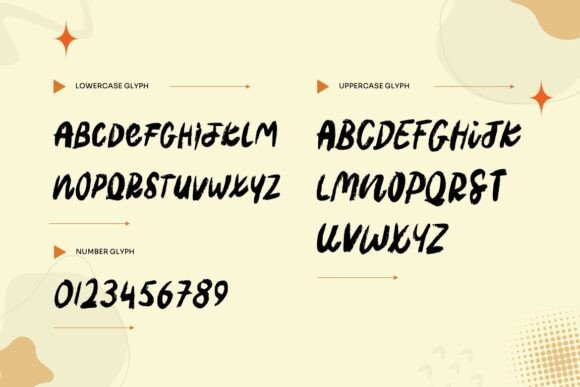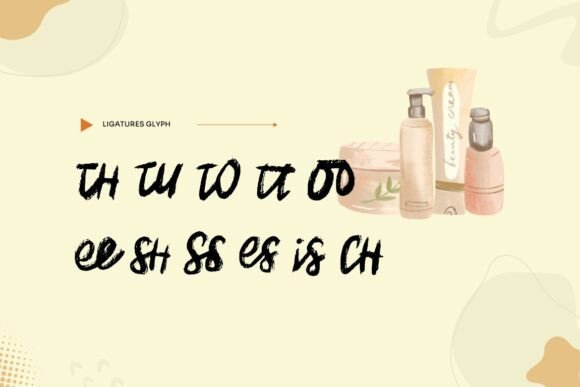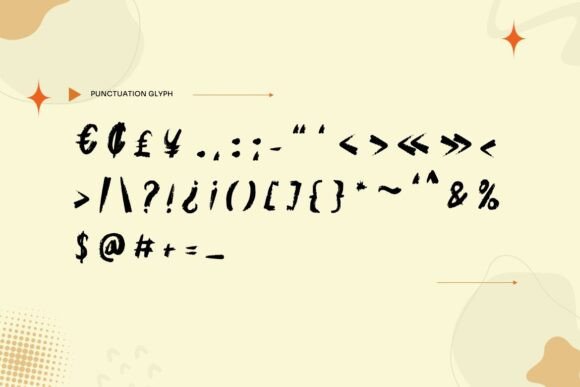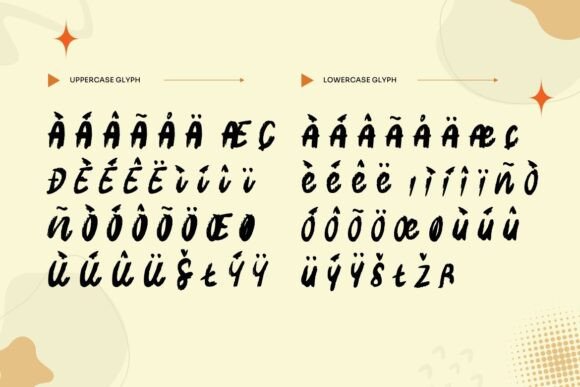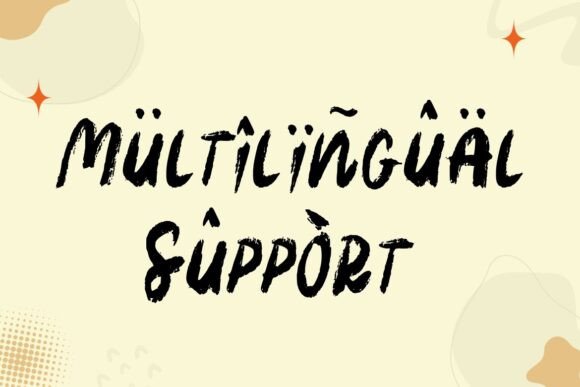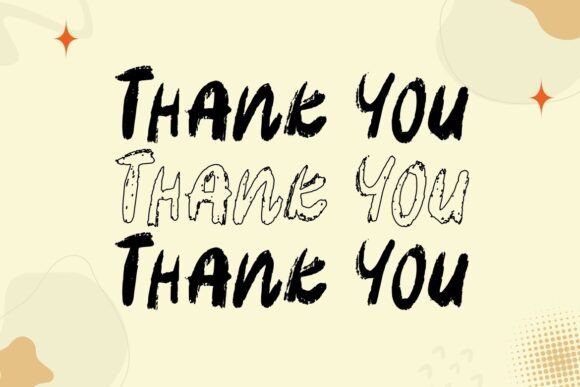
Introduction to Jossiel Font Font
Fonts play a crucial role in design, and the Jossiel Font font is a typeface that brings both character and versatility to any project. Whether you’re working on a branding project, a website, or a print design, the Jossiel Font font offers a unique style that can elevate your work.
Jossiel – Fun Textured is a lively and playful font with a unique, textured design.
Its fun, uneven edges give it a bold and creative look, making it perfect for eye-catching designs that stand out .
Key Features of Jossiel Font Font
Why Choose Jossiel Font Font?
The Jossiel Font font is more than just a typeface – it’s a design tool that helps you communicate your message with style and clarity. Its unique character set and versatile design make it suitable for a wide range of applications, from elegant invitations to bold headlines.
With its carefully crafted letterforms and balanced proportions, the Jossiel Font font ensures readability and visual appeal across all mediums.
What makes Jossiel Font font special?
The Jossiel Font font stands out with its unique design, exceptional readability, and versatility across various design applications.